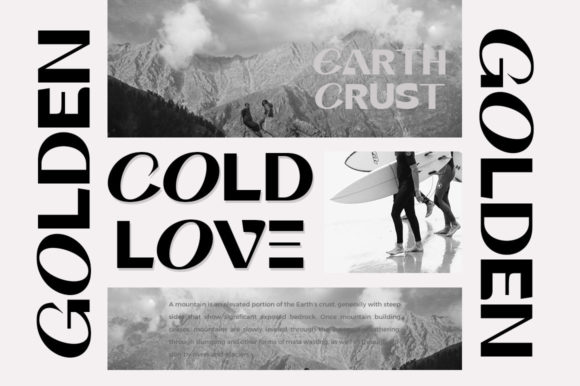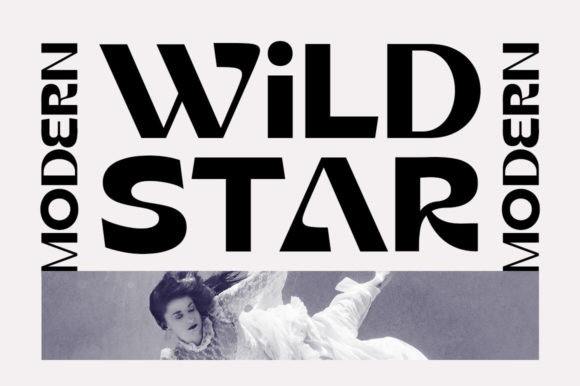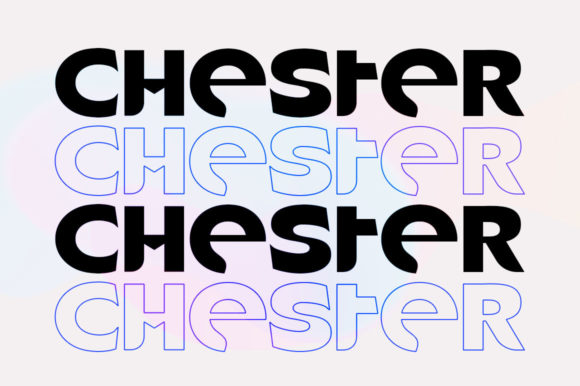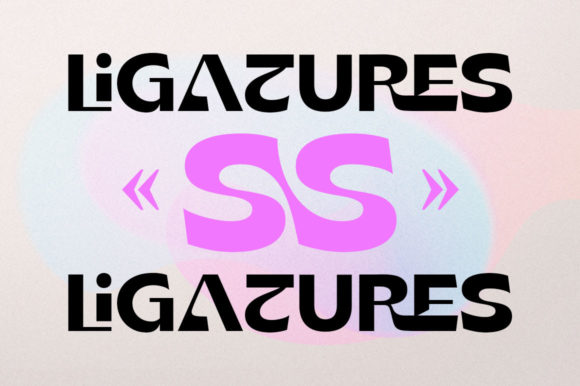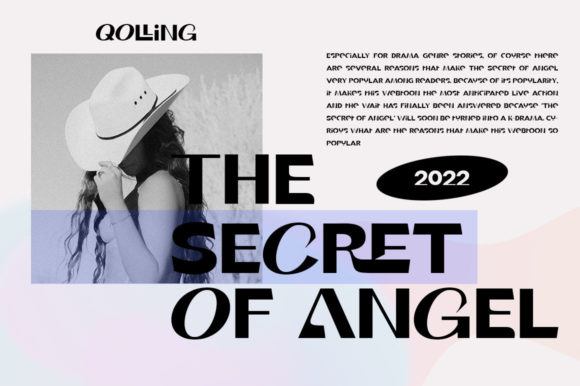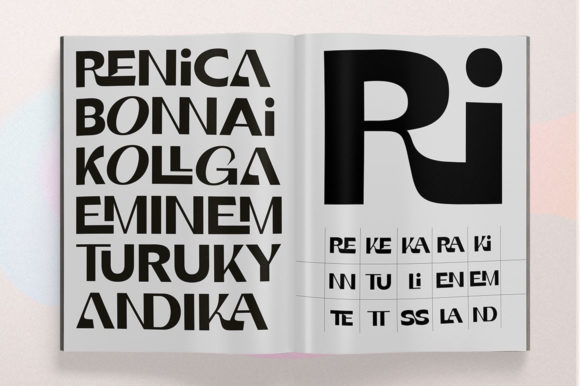
Introduction to Qolling Font
Have you ever been working on a creative project and struggled to find the perfect font to bring it to life? I know I have. The search can be overwhelming, especially when you’re looking for a high-quality, bold font that makes a statement. But what if I told you that I’ve found the solution to all your font woes? Say hello to the Qolling Font, a modern and thick lettered display font that’s sure to elevate your design game.
Key Features of Qolling Font
- Features a unique, hand-drawn style that sets it apart from other fonts.
Honest Review: Qolling Font
As a designer, I’m always on the lookout for high-quality design resources to elevate my creative projects. The Qolling Font is one such find that has impressed me with its versatility and beauty.
Here are some aspects that work well: ✨ Unique and intricate designs that add a touch of elegance to any project ✨ Clear and legible typography, making it perfect for body text and headings ✨ Free download option, which is a huge plus for indie designers and students on a budget
- Perfect for use in a wide range of creative projects, from branding and marketing materials to digital art and print design
However, I do have some limitations to note: ⚠️ The font is quite bold and might not be suitable for projects that require a more subtle look ⚠️ Some characters and symbols might require additional editing to achieve the desired effect
Overall, I’m thoroughly impressed with the Qolling Font. Its high quality and versatility make it a valuable addition to any designer’s toolkit. If you’re looking for a unique and eye-catching font for your next creative project, I highly recommend giving it a try.
For the best results, use the Qolling Font with a transparent background to create a clean and modern look.
Common use cases include creating social media graphics, logos, and branding materials.
With its high-quality design and versatility, the Qolling Font is a valuable resource for any creative project.